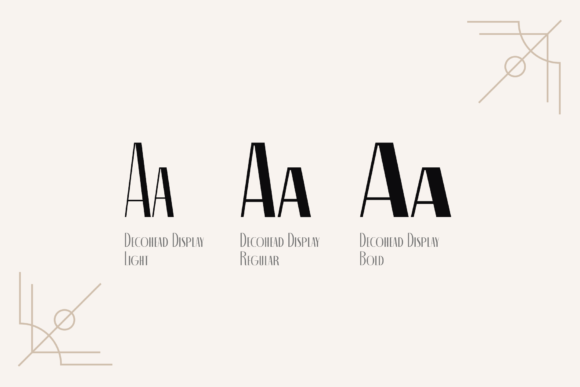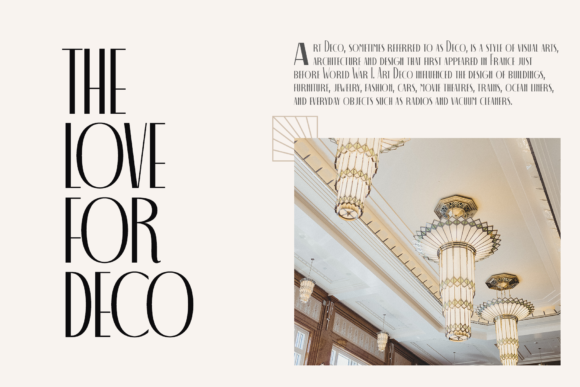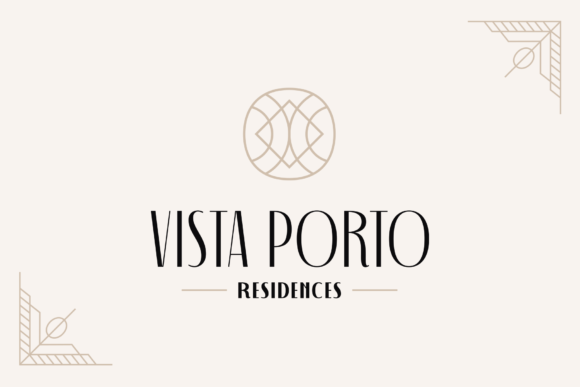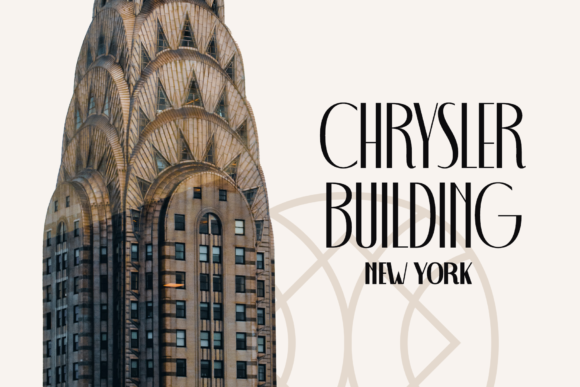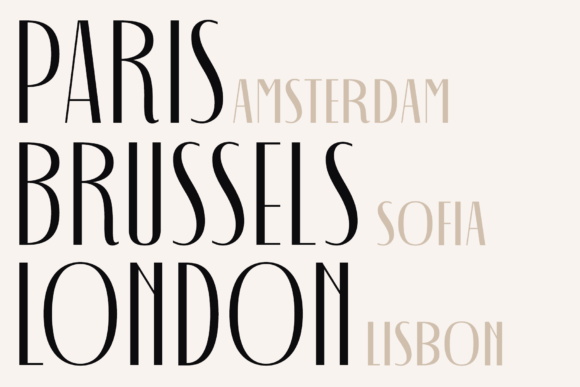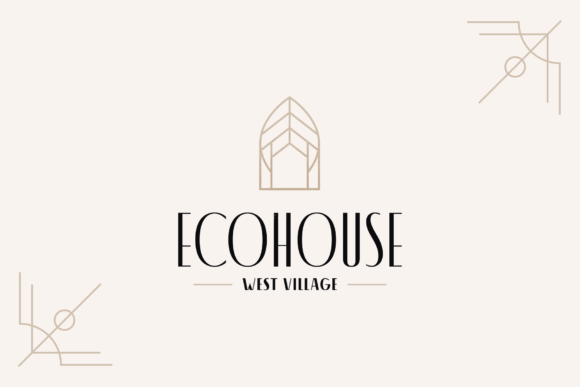
Introducing Decohead Font: Elevate Your Crafting Ideas with Style
In the world of crafting, the right font can make all the difference. Whether you’re working on a card, branding project, or label, the font you choose can elevate your design and make it stand out. That’s where Decohead Font comes in – a modern and stylish display font designed to take your crafting ideas to the next level.
What is Decohead Font?
Decohead Font is a carefully crafted display font that boasts a unique and stylish aesthetic. Its modern design makes it perfect for a wide range of crafting projects, from cards and invitations to branding, labels, and more. With Decohead Font, you can add a touch of sophistication and elegance to your creations, making them truly unforgettable.
Key Features of Decohead Font
- Modern and Stylish Design: Decohead Font features a sleek and contemporary design that’s sure to turn heads.
- Versatile: Perfect for a wide range of crafting projects, including cards, branding, labels, and more.
- Elegant and Sophisticated: Adds a touch of refinement and luxury to your creations.
How to Use Decohead Font in Your Crafting Projects
Decohead Font is incredibly versatile, making it easy to use in a variety of crafting projects. Here are a few ideas to get you started:
- Cards and Invitations: Use Decohead Font to create stunning cards and invitations that will leave a lasting impression.
- Branding and Packaging: Add a touch of elegance to your branding and packaging with Decohead Font.
- Labels and Tags: Use Decohead Font to create beautiful labels and tags that will add a personal touch to your gifts and products.
- Digital Designs: Incorporate Decohead Font into your digital designs, such as social media graphics, blog posts, and more.
Why Choose Decohead Font?
With so many fonts to choose from, why should you choose Decohead Font? Here are a few reasons:
- Unique Design: Decohead Font features a unique and stylish design that’s sure to stand out.
- High-Quality: Decohead Font is a high-quality font that’s designed to produce crisp and clear results.
Tips and Tricks for Using Decohead Font
Here are a few tips and tricks for getting the most out of Decohead Font:
- Experiment with Different Sizes: Decohead Font looks great in a variety of sizes, so don’t be afraid to experiment.
- Pair with Other Fonts: Try pairing Decohead Font with other fonts to create a unique and interesting look.
- Use in Combination with Images: Decohead Font looks great in combination with images, so try using it to add text to your photos and illustrations.